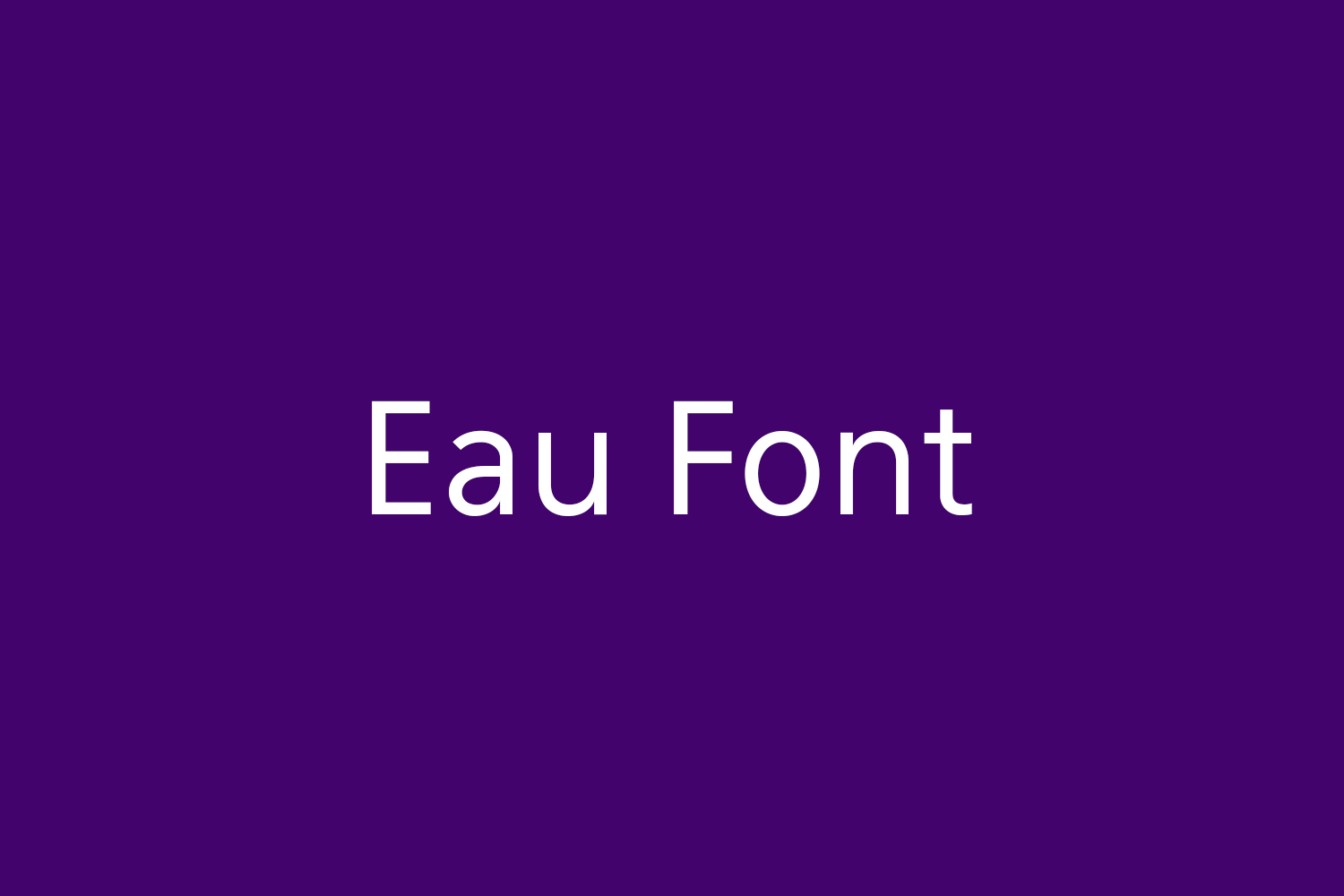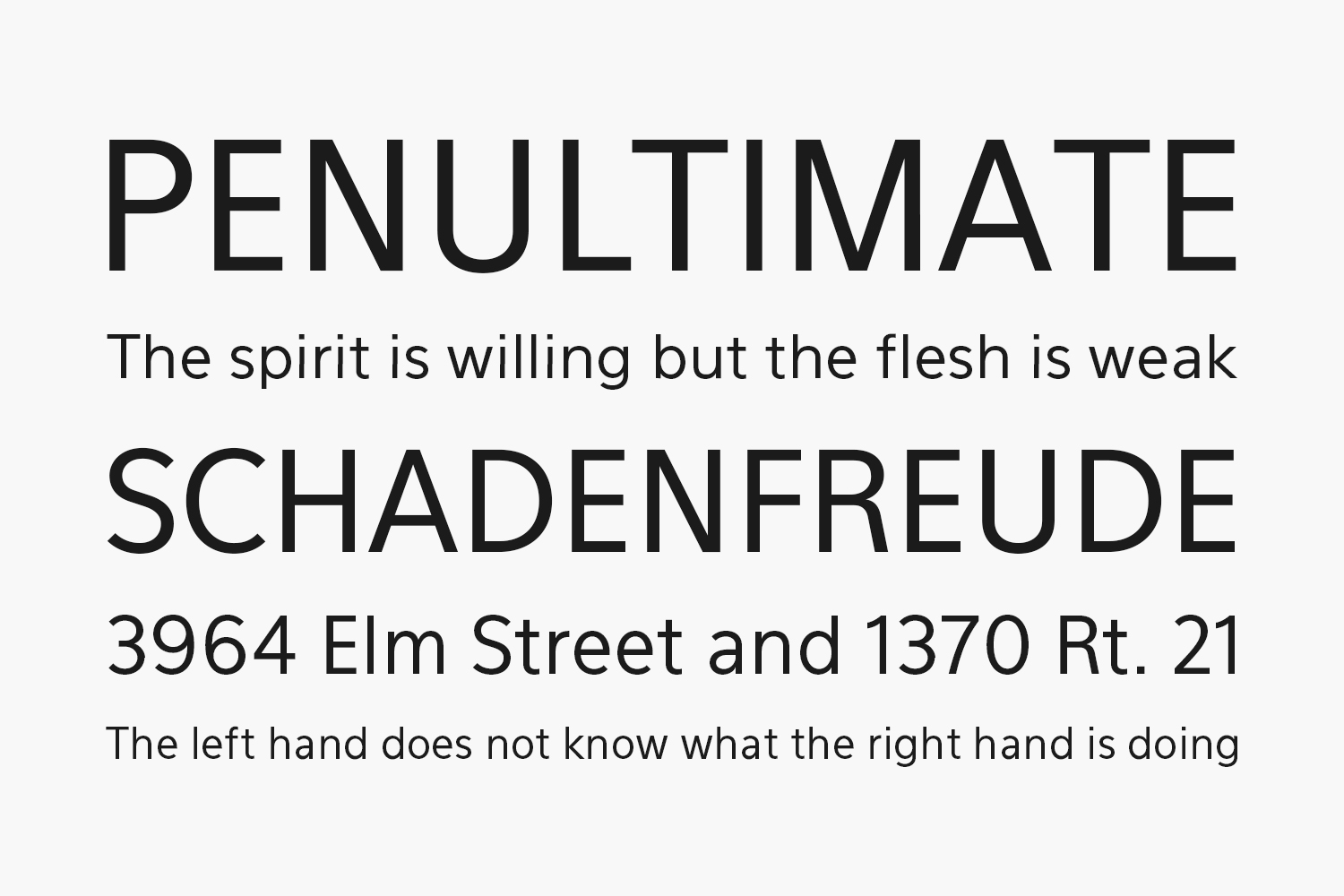
Out from the idea of perfectly faceless typeface for my own, Eau; the font has the name of “water” in French is designed in 1992. I planned 2 variations of sanserif and roman serif style for it, but I could not decide the design details for roman serif style, so only Eau Sans in sanserif style was completed. Though I think there needs refinement in Eau Sans now, I exhibit this as it was designed. At the releasing, I reformed Eua Free Font Family in 3 variations with numeric characters: proportional, lining & old-styled figures.
This typeface is used for my electronic sound project: parabola.